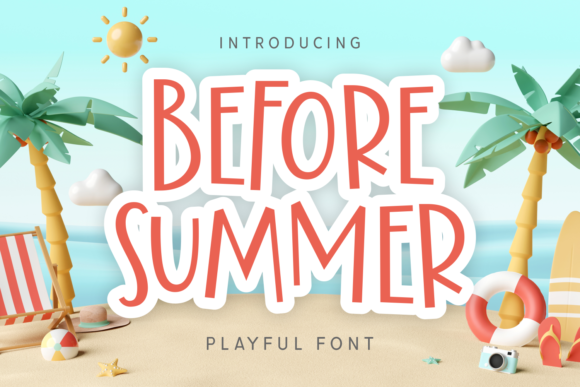
Before Summer: A Display Font to Ignite Your Designs
Step into a vibrant world of typography with Before Summer, a chic, fun and quirky display font crafted by Dani (7NTypes). This font family, designed for captivating visual impact, is a treasure trove of creativity, waiting to infuse your branding projects with personality and panache.
With its playful curves and bold strokes, Before Summer dances across your screen, capturing attention and sparking imaginations. Its unique style, perfect for posters, logos, t-shirt designs, and more, will elevate your creative projects to new heights of expression.
Dive into a sea of possibilities as you unleash the power of Before Summer. Its versatility knows no bounds, allowing you to craft designs that resonate with your audience. From bold statements to playful expressions, this font family adapts seamlessly to your vision, adding a touch of charm and individuality to every project.
Before Summer is more than just a font; it's an invitation to let your creativity run wild. Its playful spirit and eye-catching presence will transform your designs into unforgettable experiences, leaving a lasting impression on your audience.